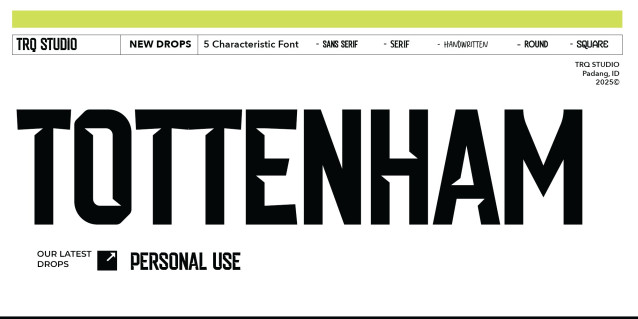
Tottenham Font
Tottenham Font, suitable for any design needs : logo, branding, modern advertising design, logos, poster quote, book / cover Title, editorial design, website / blog, card, t-shirts, and any hand-lettered needs.